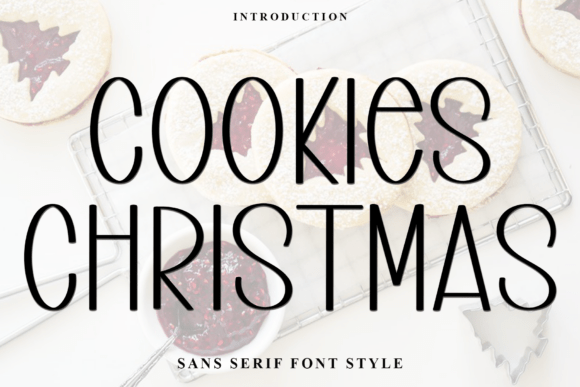
Cookies Christmas Font: A Sweet and Friendly Handwritten Font for Your Holiday Designs
The holiday season is upon us, and with it comes the need for festive and fun designs that capture the spirit of Christmas. One of the most important elements of any design is the font, and that’s where Cookies Christmas Font comes in. This sweet and friendly handwritten font is perfect for adding a personal touch to your holiday designs, and its natural and unique style makes it incredibly versatile.
What is Cookies Christmas Font?
Cookies Christmas Font is a handwritten font that is designed to evoke the feeling of a warm and cozy holiday season. Its natural and unique style makes it perfect for a wide range of designs, from Christmas cards and invitations to holiday-themed packaging and advertising. The font is characterized by its playful and friendly feel, with a subtle imperfections that give it a handmade look.
Key Features of Cookies Christmas Font
- Handwritten style: Cookies Christmas Font is a handwritten font that is designed to look like it was written by hand.
- Natural and unique style: The font has a natural and unique style that makes it perfect for a wide range of designs.
- Playful and friendly feel: The font has a playful and friendly feel that makes it perfect for holiday designs.
- Subtle imperfections: The font has subtle imperfections that give it a handmade look.
Why Use Cookies Christmas Font?
There are many reasons why you might want to use Cookies Christmas Font in your holiday designs. Here are just a few:
Reasons to Use Cookies Christmas Font
- Perfect for holiday designs: Cookies Christmas Font is specifically designed for holiday designs, making it a great choice for Christmas cards, invitations, and other holiday-themed projects.
- Unique and eye-catching: The font’s unique and playful style makes it a great way to add some personality to your designs.
- Easy to read: Despite its playful style, Cookies Christmas Font is easy to read, making it perfect for use in body text.
- Versatile: The font’s natural and unique style makes it incredibly versatile, and it can be used in a wide range of designs.
How to Use Cookies Christmas Font
Using Cookies Christmas Font in your designs is easy. Here are a few tips to get you started:
Tips for Using Cookies Christmas Font
- Use it for headings: Cookies Christmas Font is perfect for use in headings and titles, where its playful style can really shine.
- Use it for body text: The font is also easy to read, making it a great choice for use in body text.
- Experiment with different colors: Cookies Christmas Font looks great in a wide range of colors, so don’t be afraid to experiment and find the perfect color for your design.
- Pair it with other fonts: The font can be paired with other fonts to create a unique and eye-catching look.
Cookies Christmas Font in Action
So what does Cookies Christmas Font look like in action? Here are a few examples of how the font can be used in different designs:
Examples of Cookies Christmas Font in Action
- Christmas cards: Cookies Christmas Font is perfect for use in Christmas cards, where its playful style can add a personal touch.
- Holiday invitations: The font is also great for use in holiday invitations, where its friendly feel can help set the tone for a fun and festive event.
- Holiday packaging: Cookies Christmas Font can be used in holiday packaging to add a touch of personality and whimsy.
- Advertising: The font can also be used in advertising to create a fun and festive atmosphere.
Cookies Christmas Font is a sweet and friendly handwritten font that is perfect for adding a personal touch to your holiday designs. Its natural and unique style makes it incredibly versatile, and it can be used in a wide range of designs. Whether you’re creating Christmas cards, holiday invitations, or festive packaging, Cookies Christmas Font is a great choice.